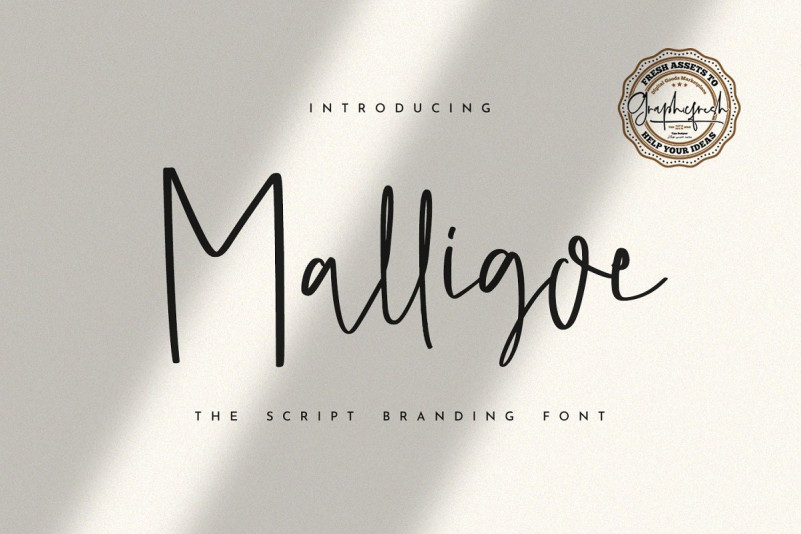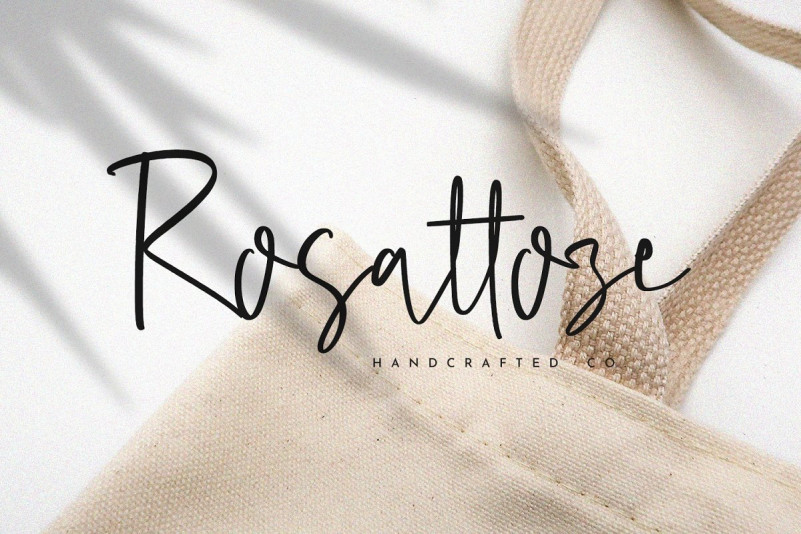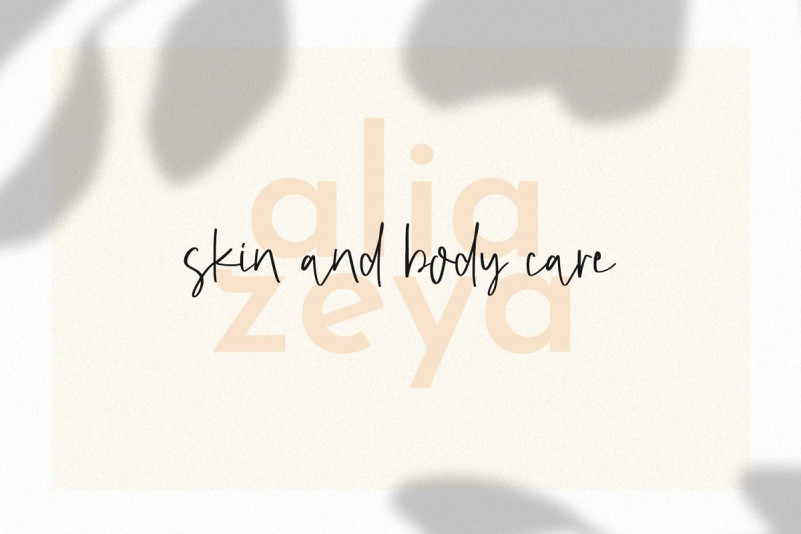
Malligoe Font
Back to the statement above, we made a handwritten font to elevate your brand. This font is perfect for making a logo or writing about your business. So, don’t forget to collect it.